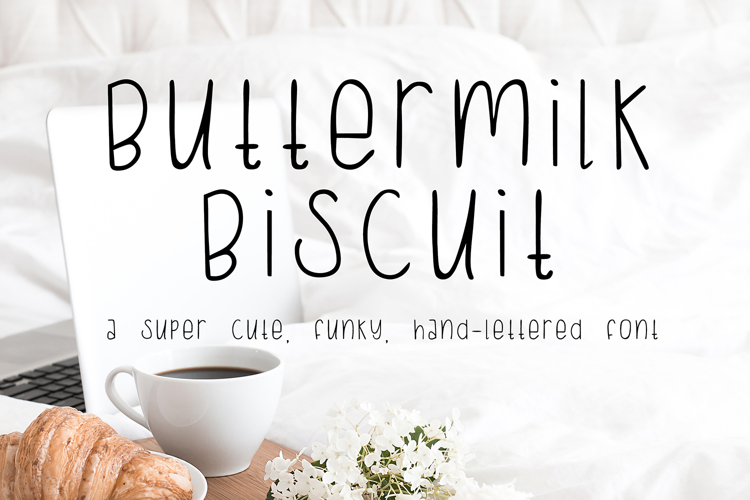
Buttermilk Biscuits, Cute Farmhouse Font, Handwritten
Introducing Buttermilk Biscuits, our charming Farmhouse Handwritten Font, the perfect addition to your creative projects! This delightful handwritten font is specifically designed for Cricut, making it an ideal choice for all your Cricut Font SVG needs. With its playful and fun handwriting style, this Cricut font will bring a touch of warmth and authenticity to your crafts. Whether you're designing rustic farmhouse signs, personalized stationery, or handmade cards, this versatile and enchanting font will surely impress. Create a cozy atmosphere with this farmhouse handwritten font and let your imagination run wild. Elevate your designs with this captivating and sought-after fun handwriting Cricut font, a must-have for any font enthusiast or DIY enthusiast.